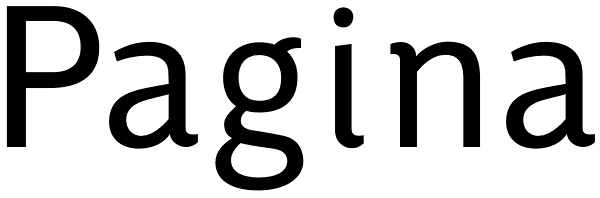
Pagina
Pagina is dedicated to the paper or epaper on which type appears. Pages come in all shapes and sizes and come to life with endless typographic variations that range from flippant to philosophical ideas. It is so easy to get wrapped up in fonts and...